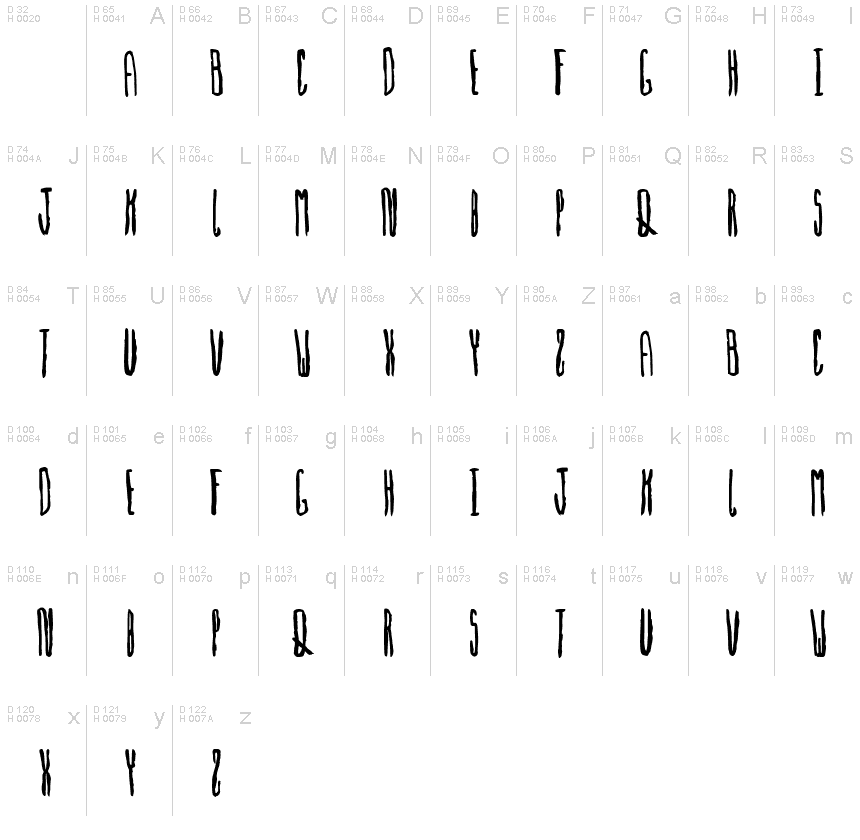
Cultish Regular
Cultish by Sylas Grove is the perfect font for all your spooky projects. This display font boasts a scary brush style that's sure to give your designs an edge. With its semi-light weight and ultra-condensed width, Cultish commands attention without overpowering the rest of your design. Use it for anything from horror movie posters to Halloween party invitations. Its unique style is also well-suited for book covers or album art in the alternative or metal genres. Don't be afraid to embrace the dark side with Cultish!